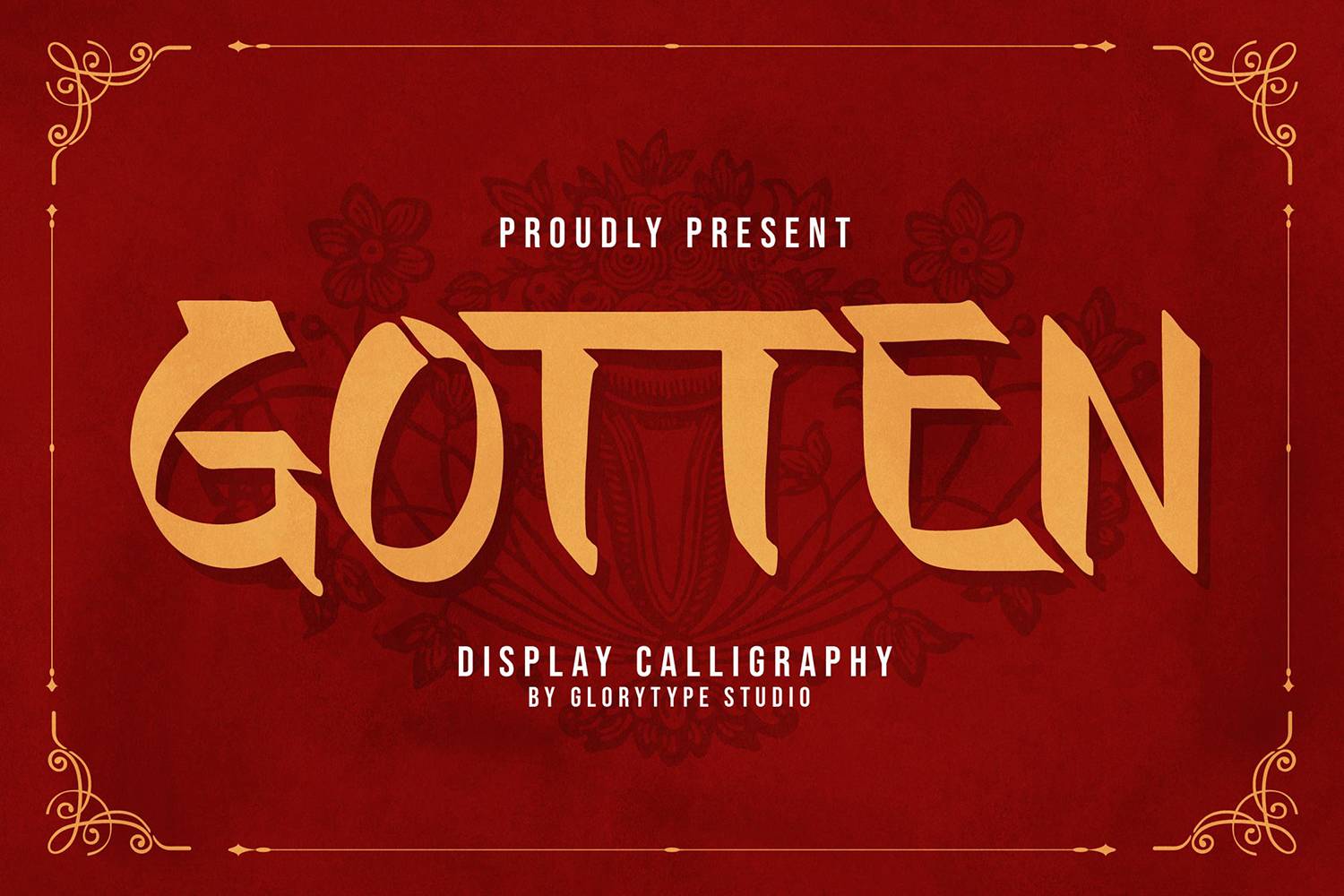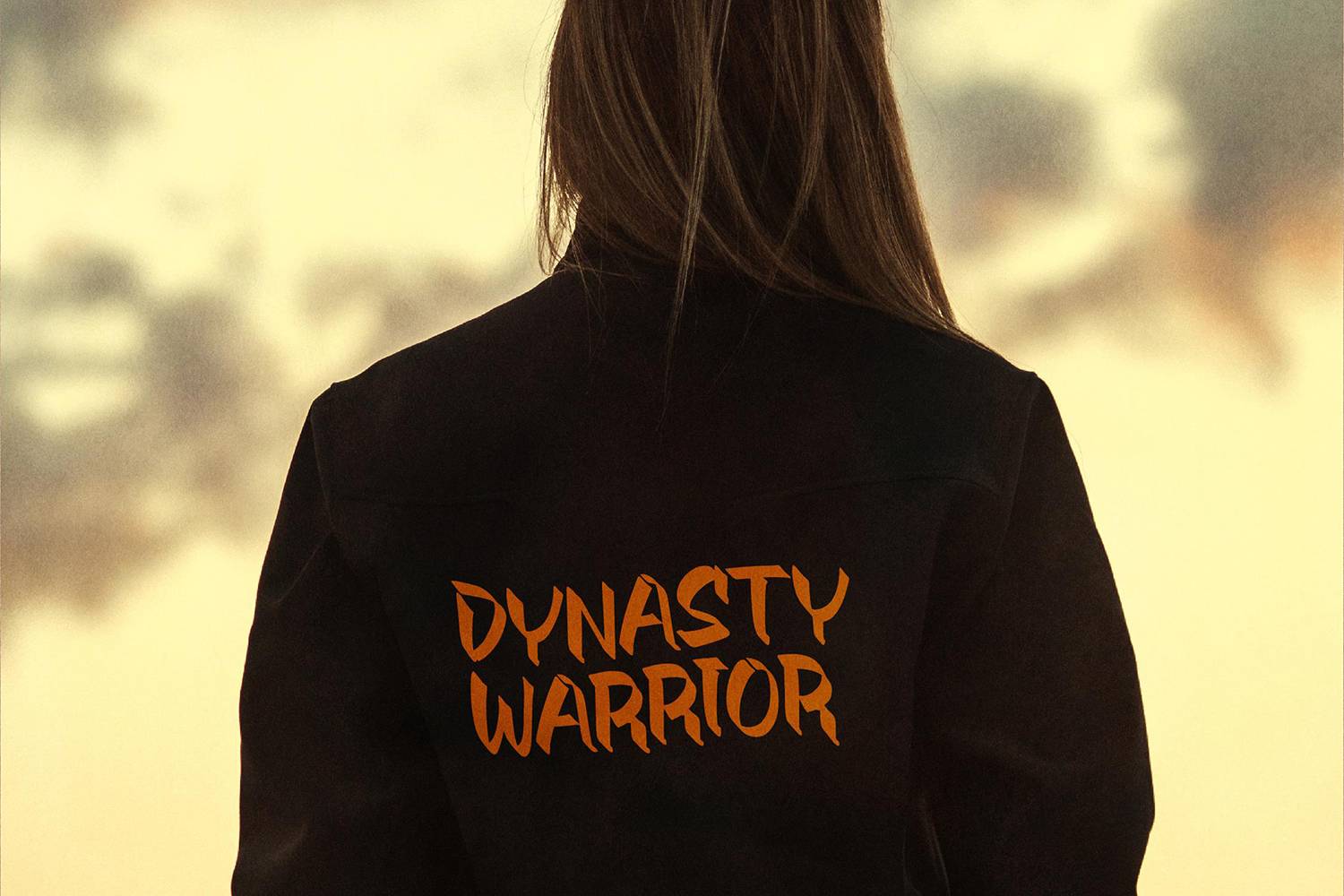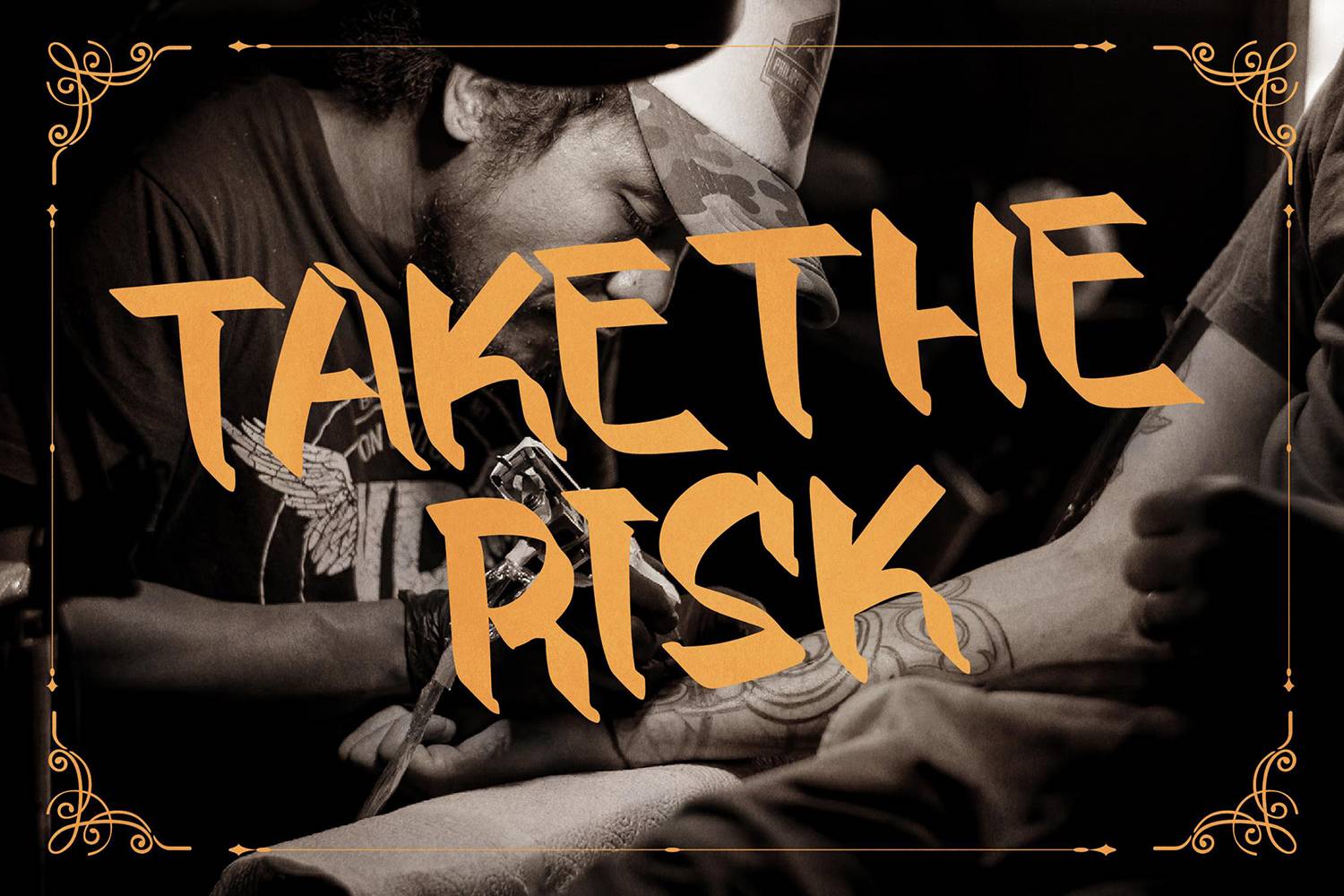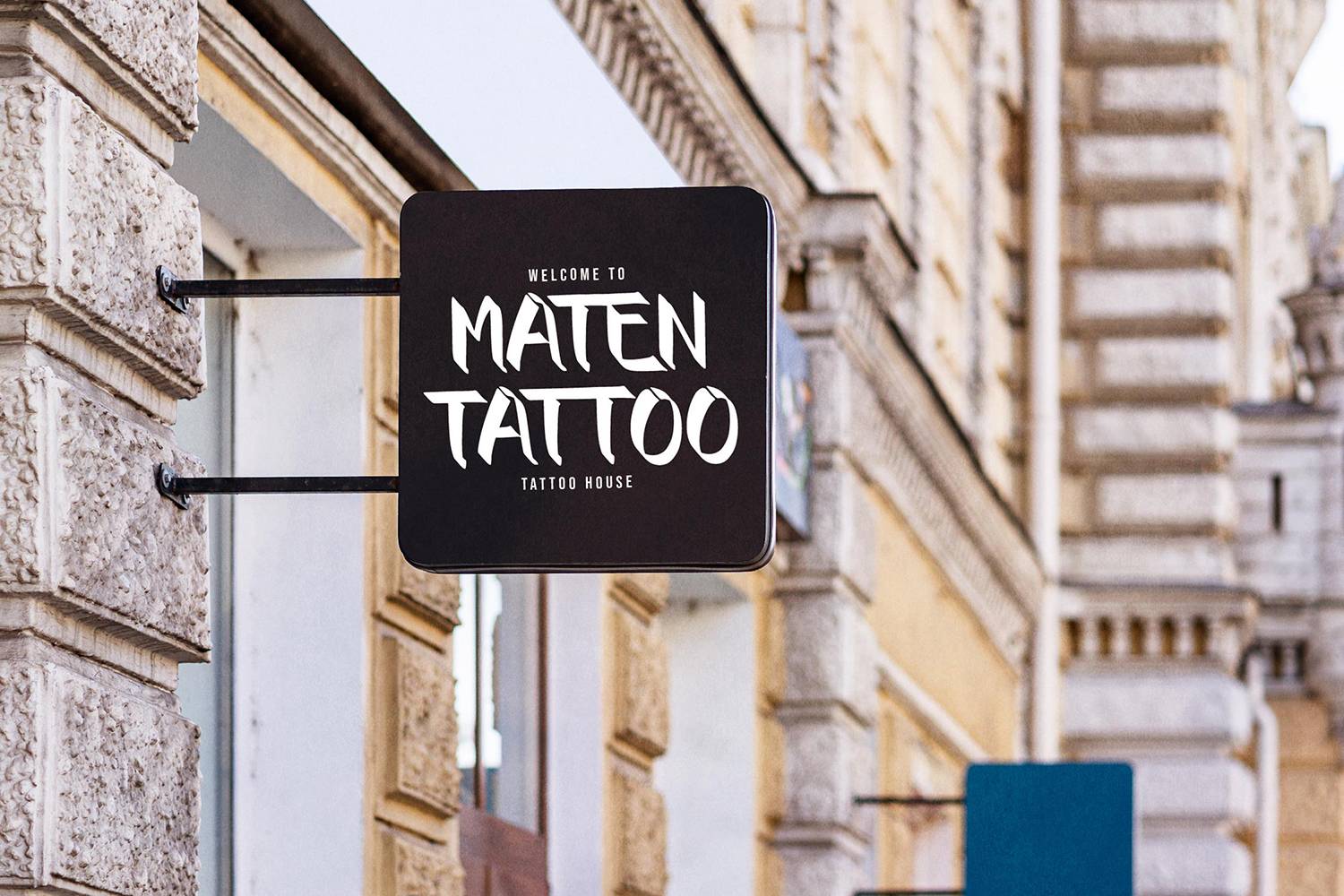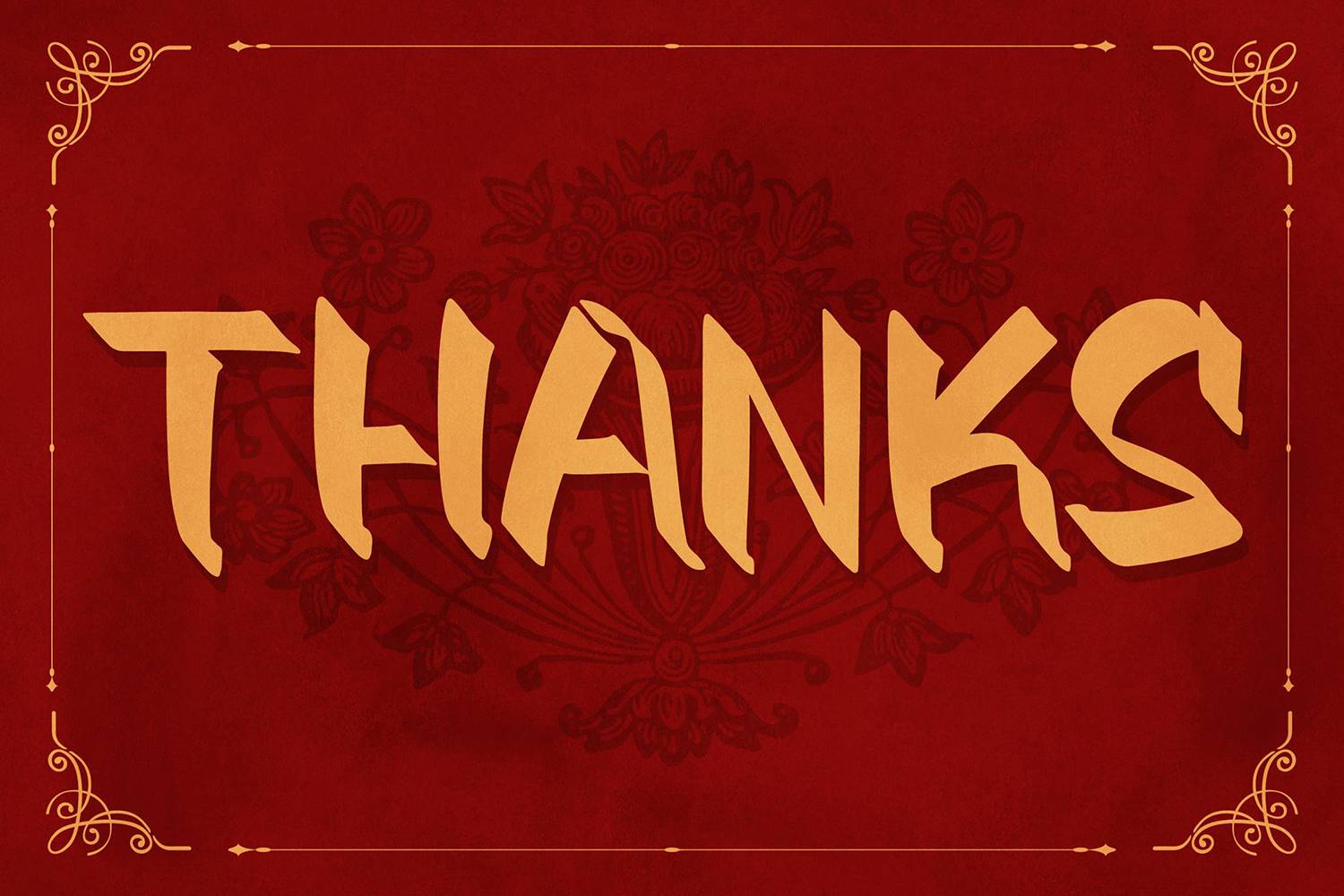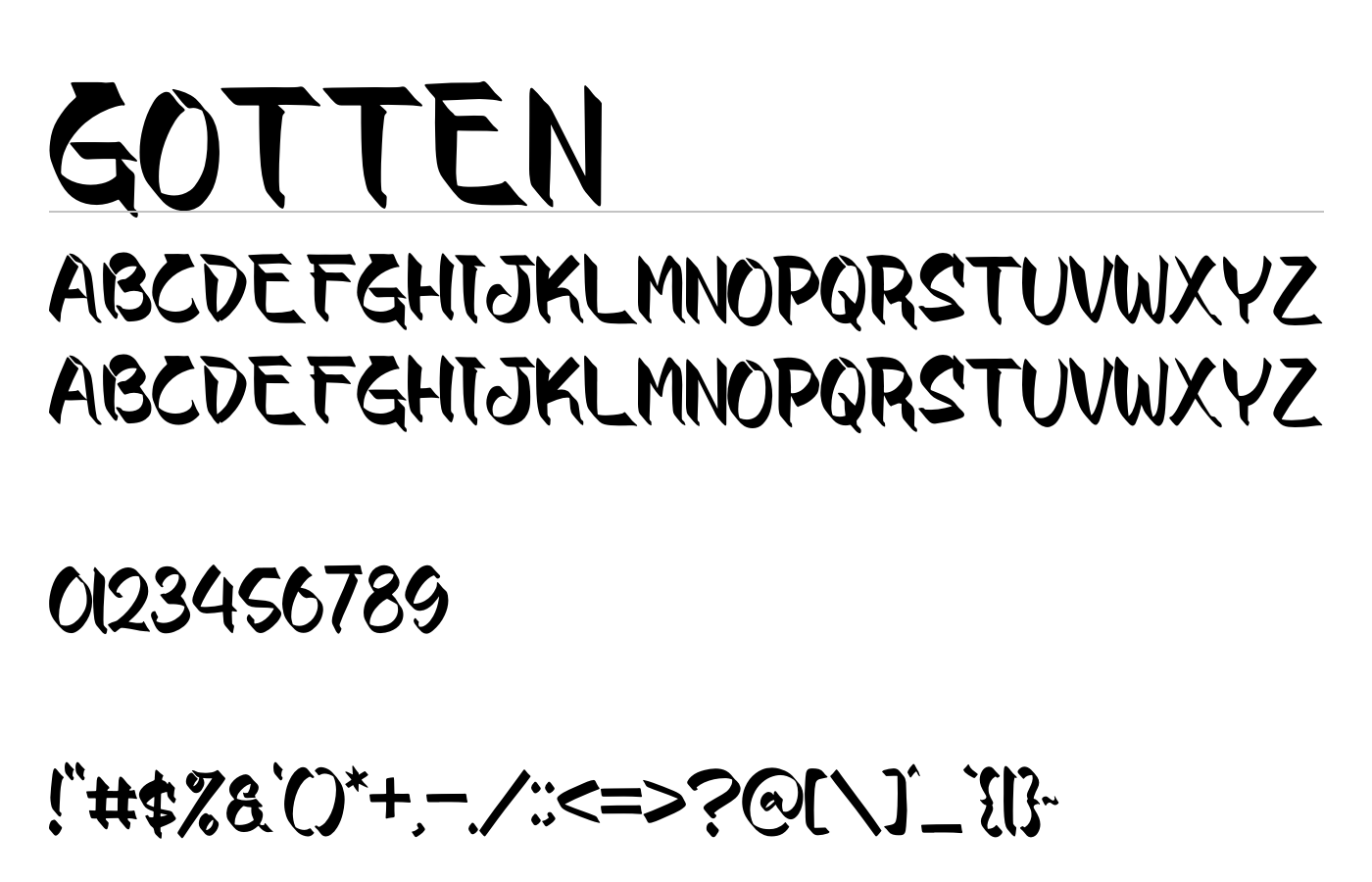
Gotten is a bold, condensed sans serif font with a slightly rough, hand-drawn feel that adds personality and energy to its sharp, angular letterforms. Its high contrast strokes and unique shapes give it a dynamic, casual vibe, making it perfect for creative headlines, posters, or branding that wants to stand out with a strong, artistic touch. This font works well where a distinctive, slightly edgy style is needed to grab attention and express individuality.
Gotten Font
About Gotten Font